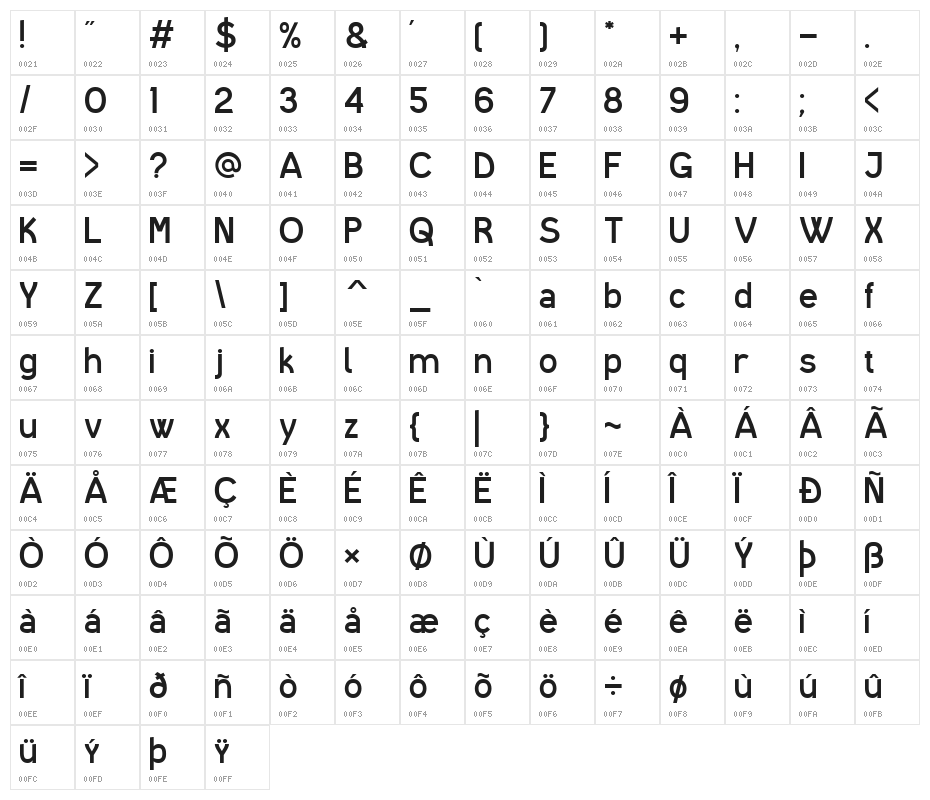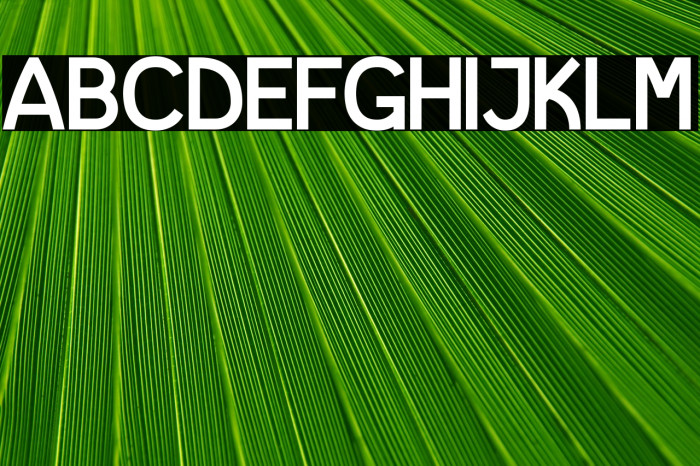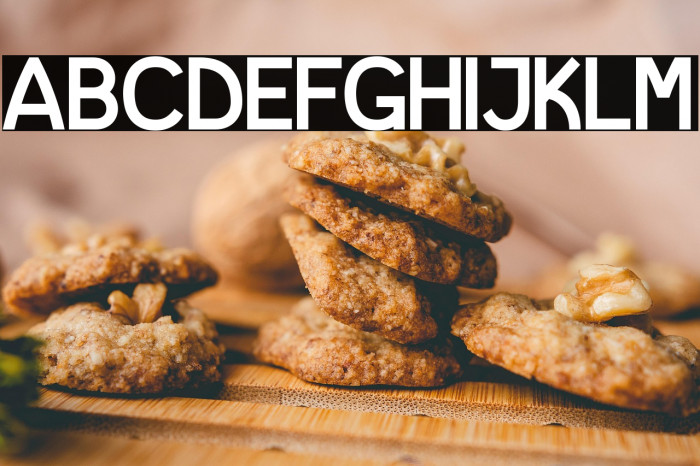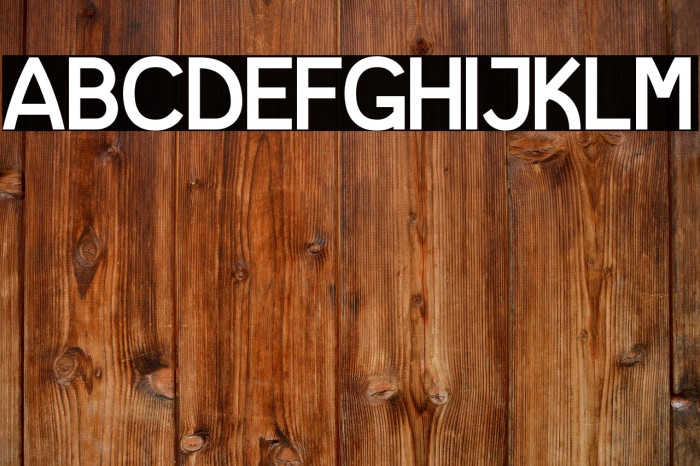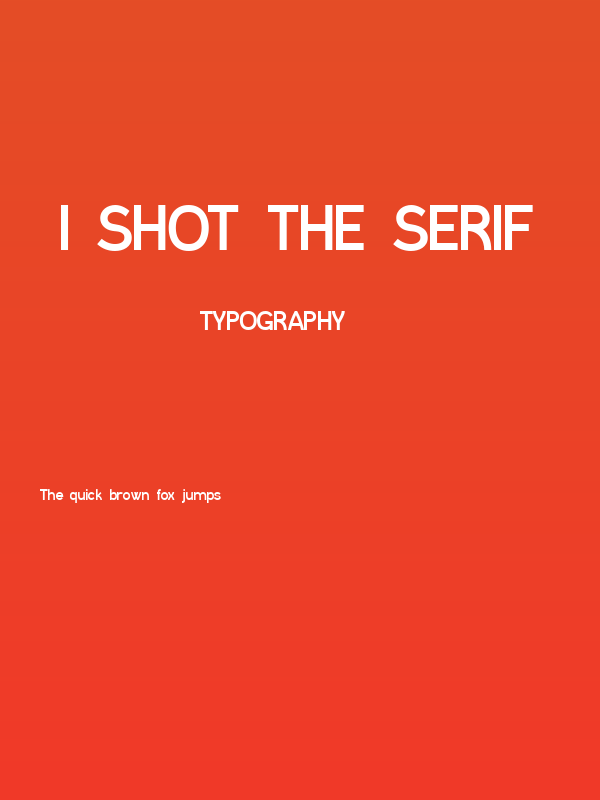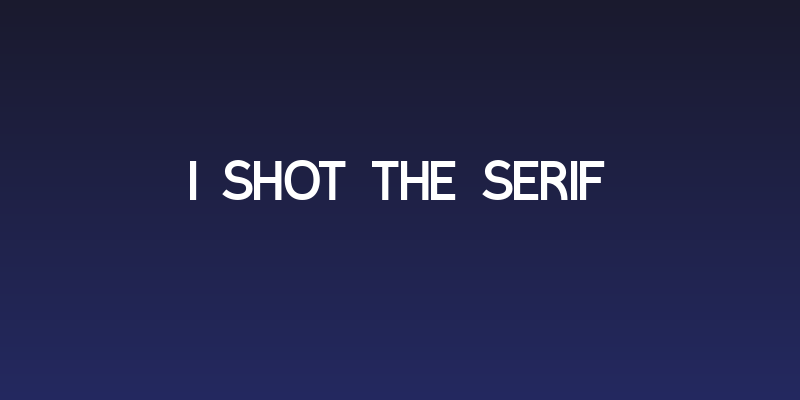
I shot the Serif Font
I shot the Serif Description
This font features a clean and modern sans-serif design, characterized by its geometric shapes and uniform stroke widths. The uppercase letters are bold and assertive, while the lowercase letters maintain a consistent and harmonious appearance. The numerals are clear and easily distinguishable, making them suitable for a variety of applications. The special characters are well-integrated, ensuring a cohesive look across different text elements. This font's simplicity and clarity make it highly legible, even at smaller sizes, while its modern aesthetic adds a touch of sophistication to any design.
| Proposed Projects | Ideal for branding, advertising, web design, and editorial layouts where clarity and modernity are key. |